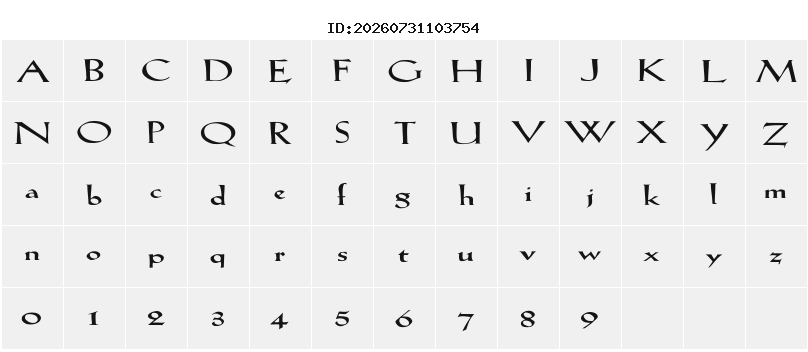
LilHvy Ex Preview
• Font Name: LilHvy Ex
• Full Font Name: LilHvy Ex
About LilHvy Ex.ttf
LilHvy Ex.ttf is a modern, elegant sans-serif font designed for ultimate readability and visual harmony. Perfect for branding, headlines, web design, and print materials.